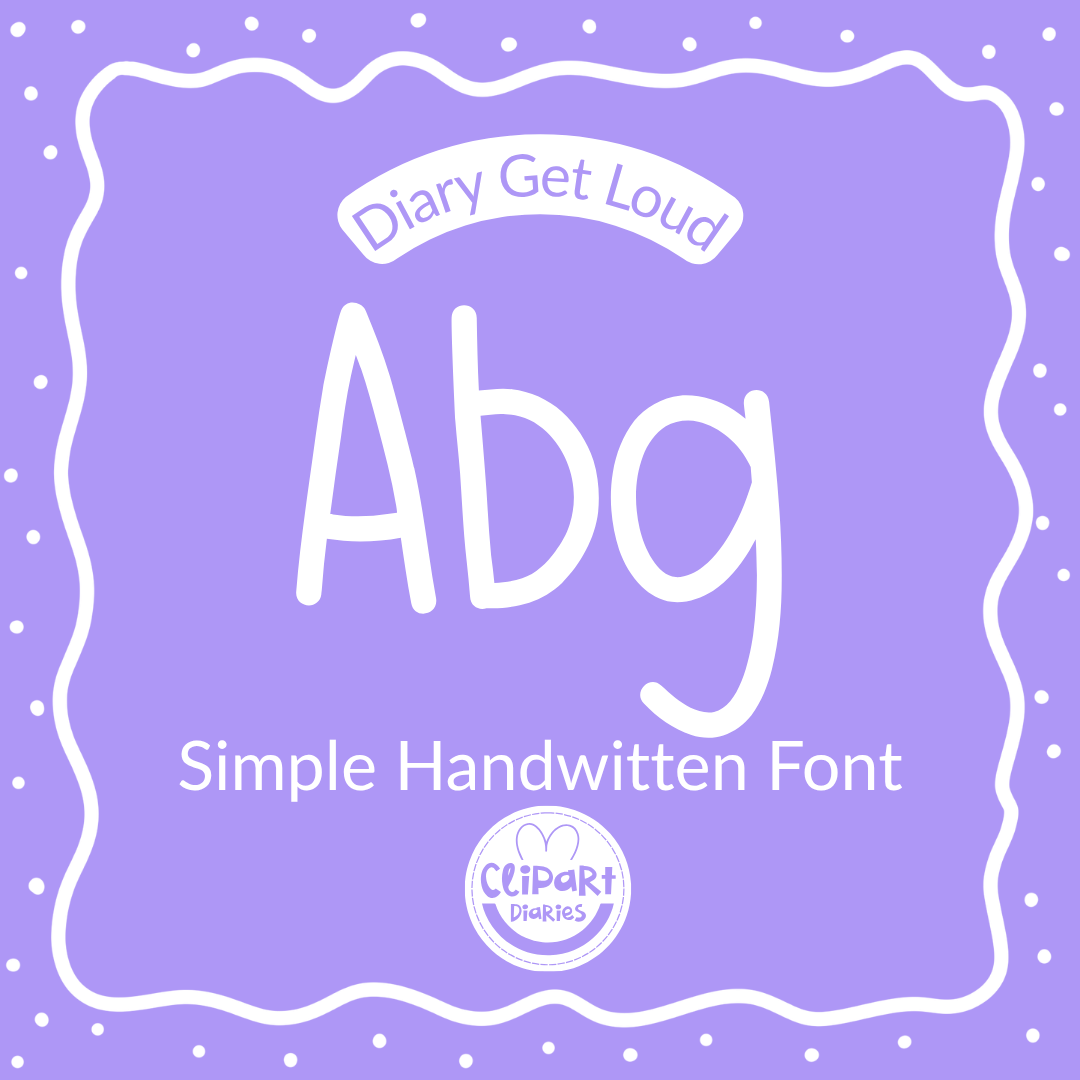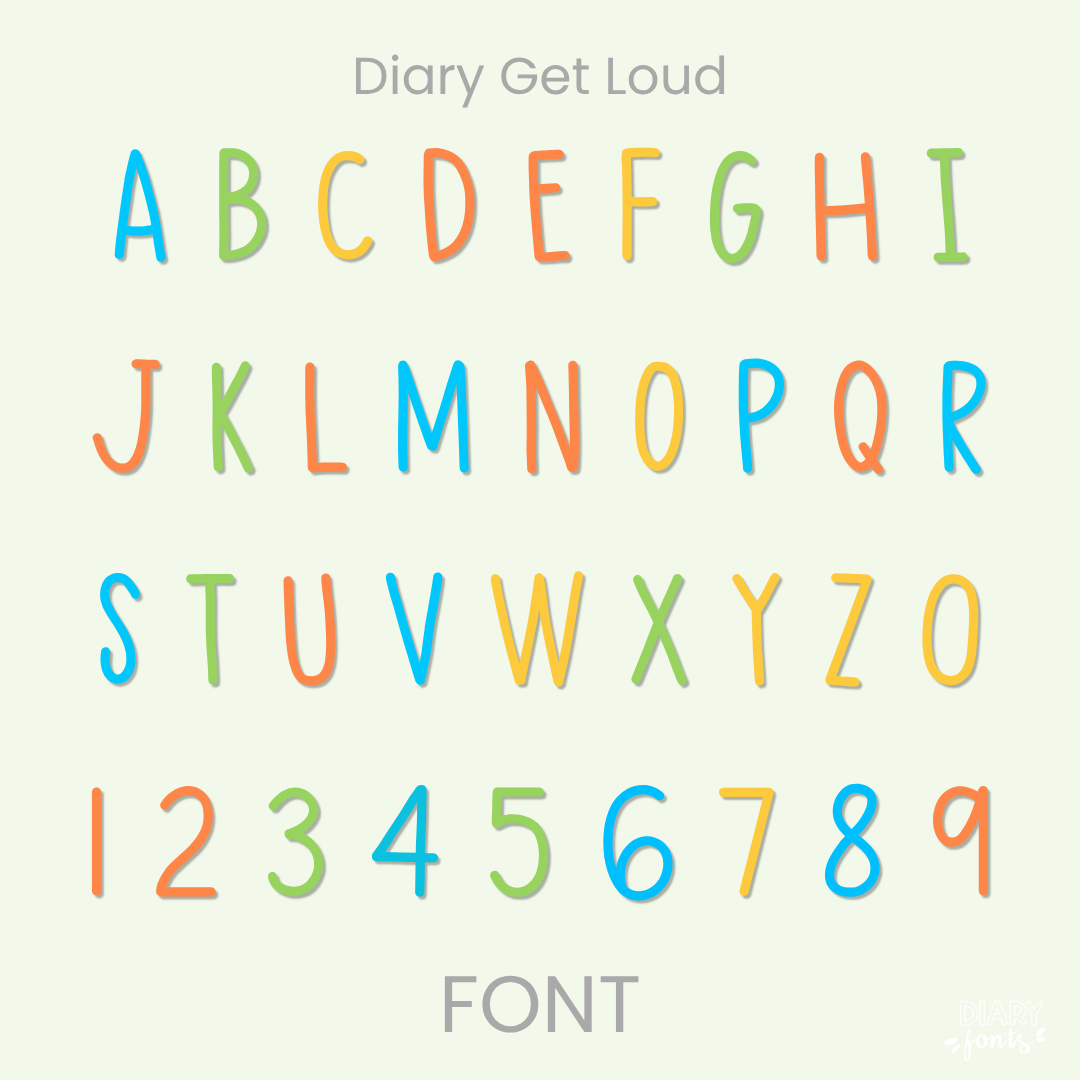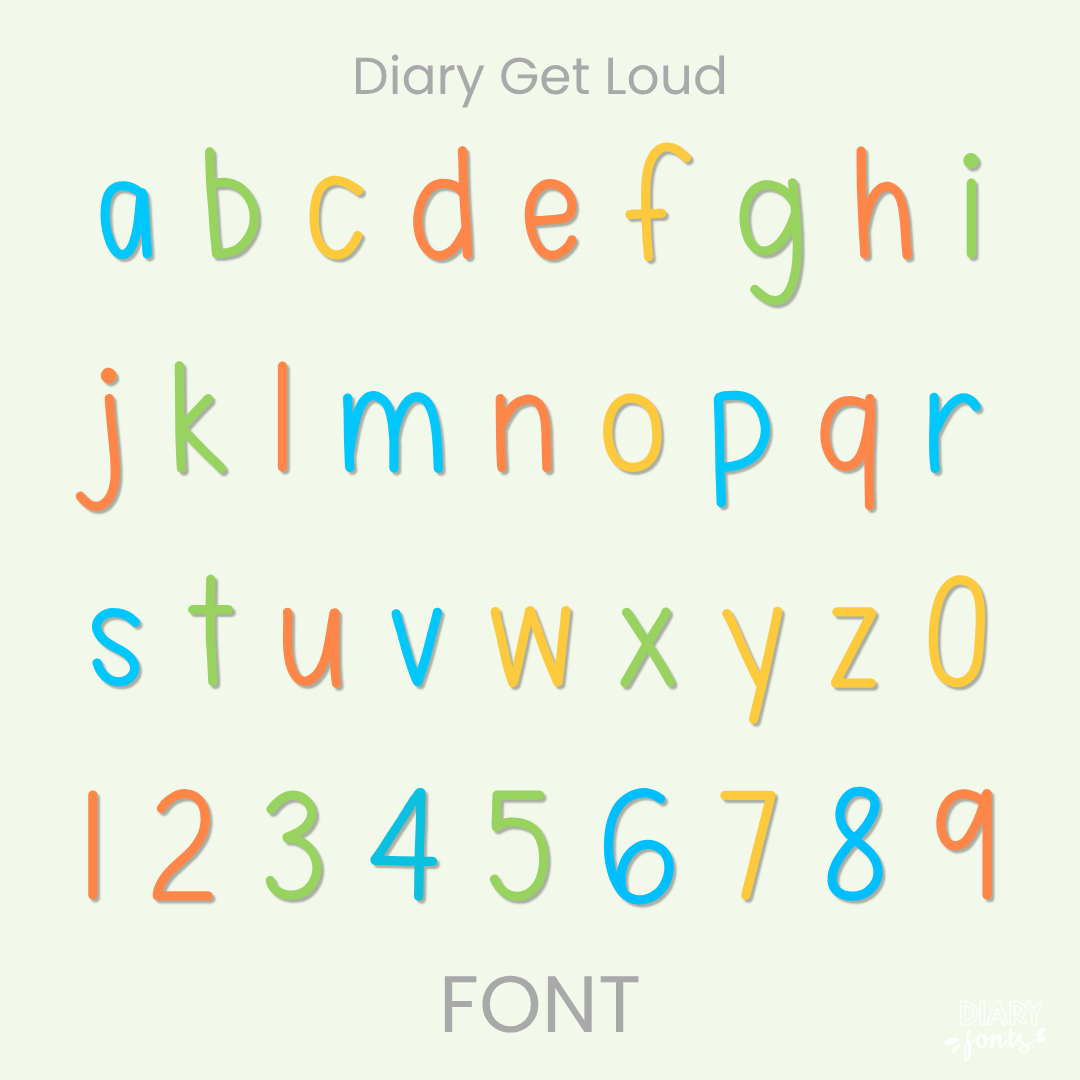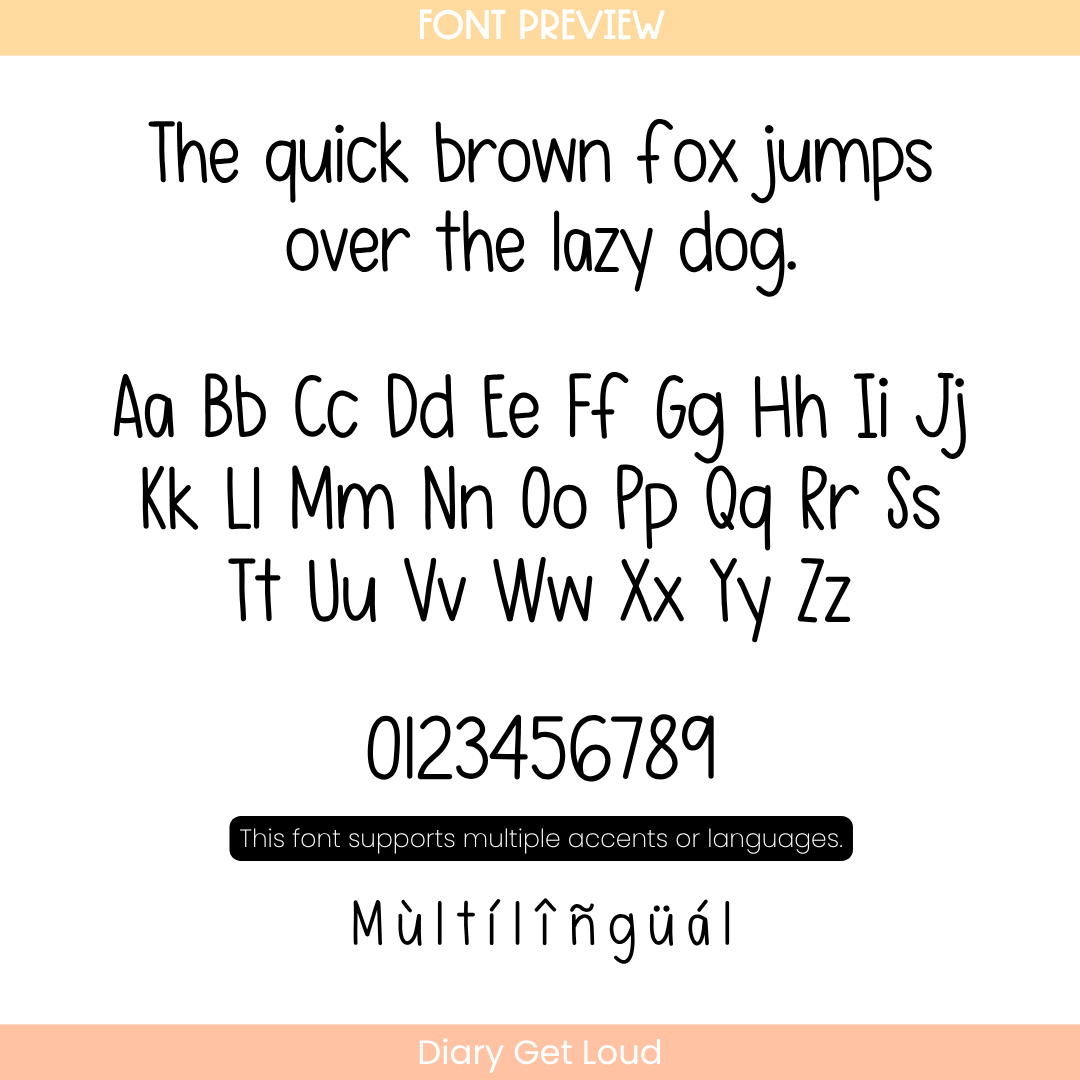
If you need a simple and reliable font for daily classroom use, Diary Get Loud is an excellent choice. It features an upright, balanced style with clear spacing, making it incredibly easy for students to read. The letterforms are uncomplicated and maintain a very tidy and organized appearance on the page, perfect for primary worksheets, instructional slides, and classroom labels where legibility is the top priority. The font includes a full set of uppercase and lowercase letters, numbers, and multiple accents to support different languages. It is ready for use in Canva, MS Office, and Adobe Apps, and it works flawlessly on the iPad with GoodNotes and Procreate. Whether for personal projects or commercial resources, this font provides a polished and professional hand-drawn aesthetic.
Diary Get Loud Font
The Diary Get Loud is a clean, straightforward print font designed to give your digital resources and classroom materials a neat, hand-written look.